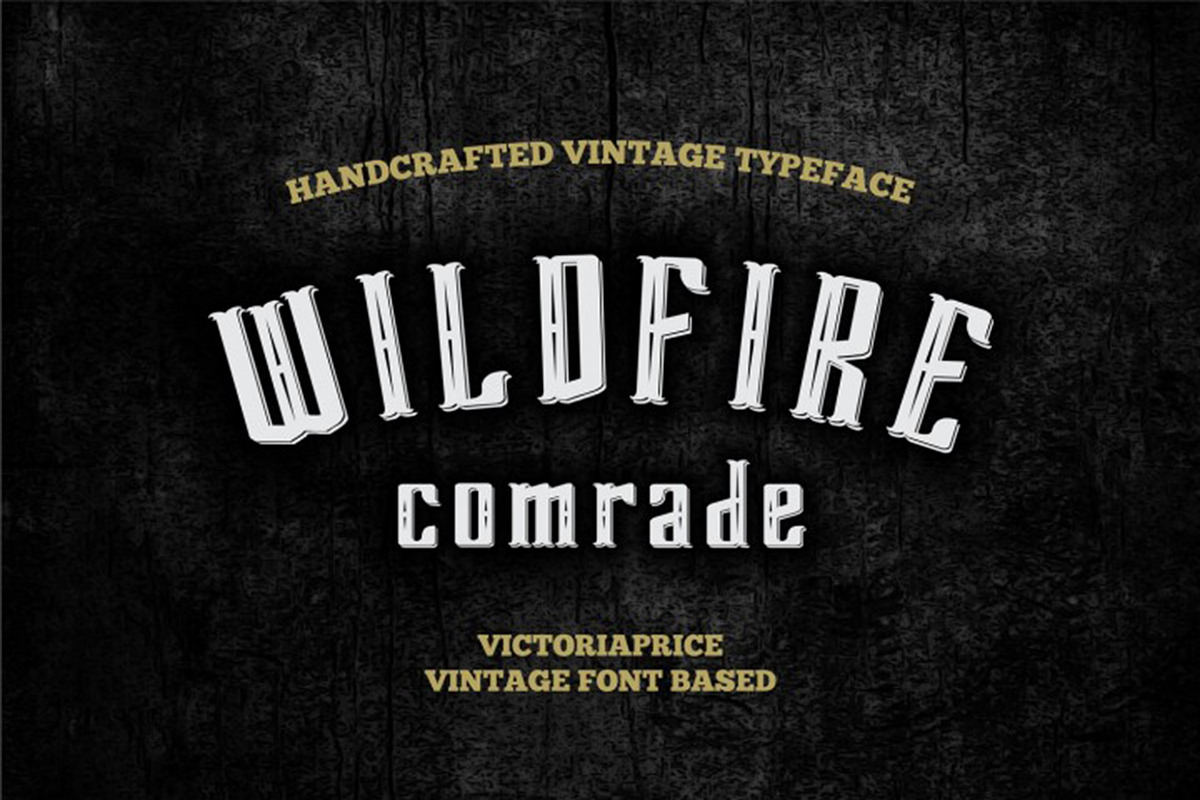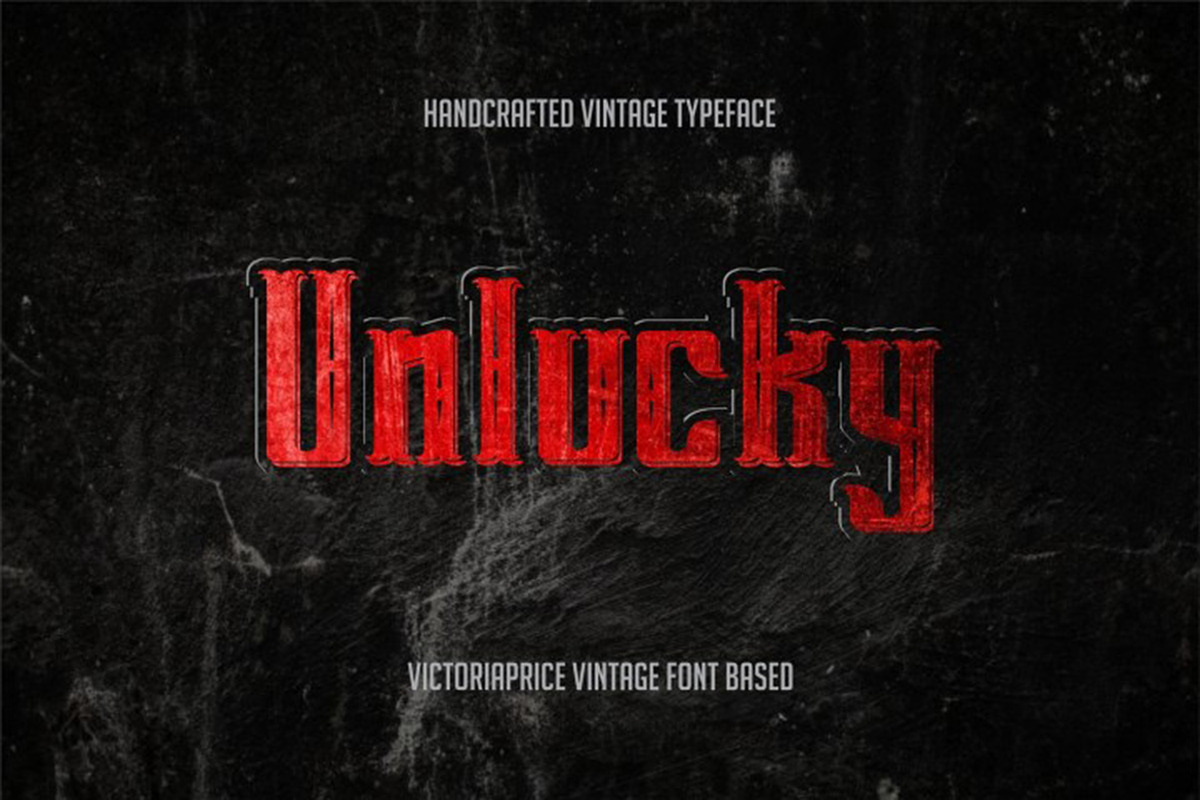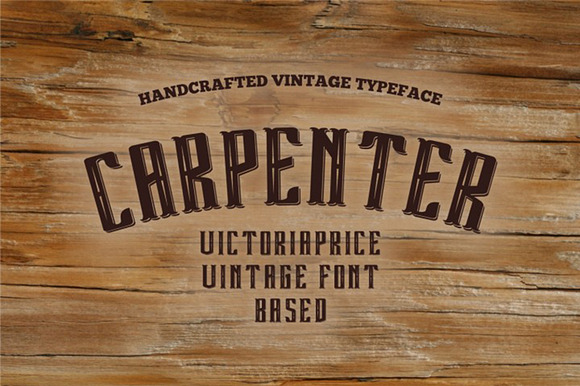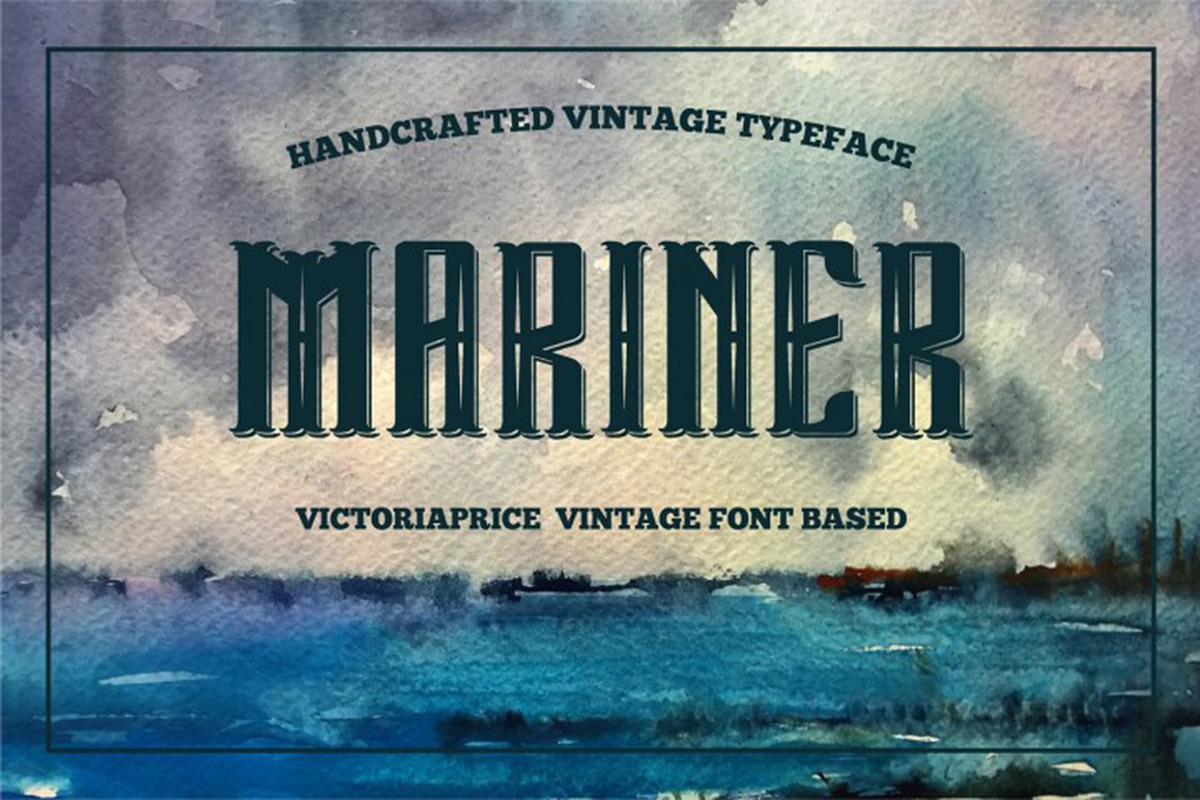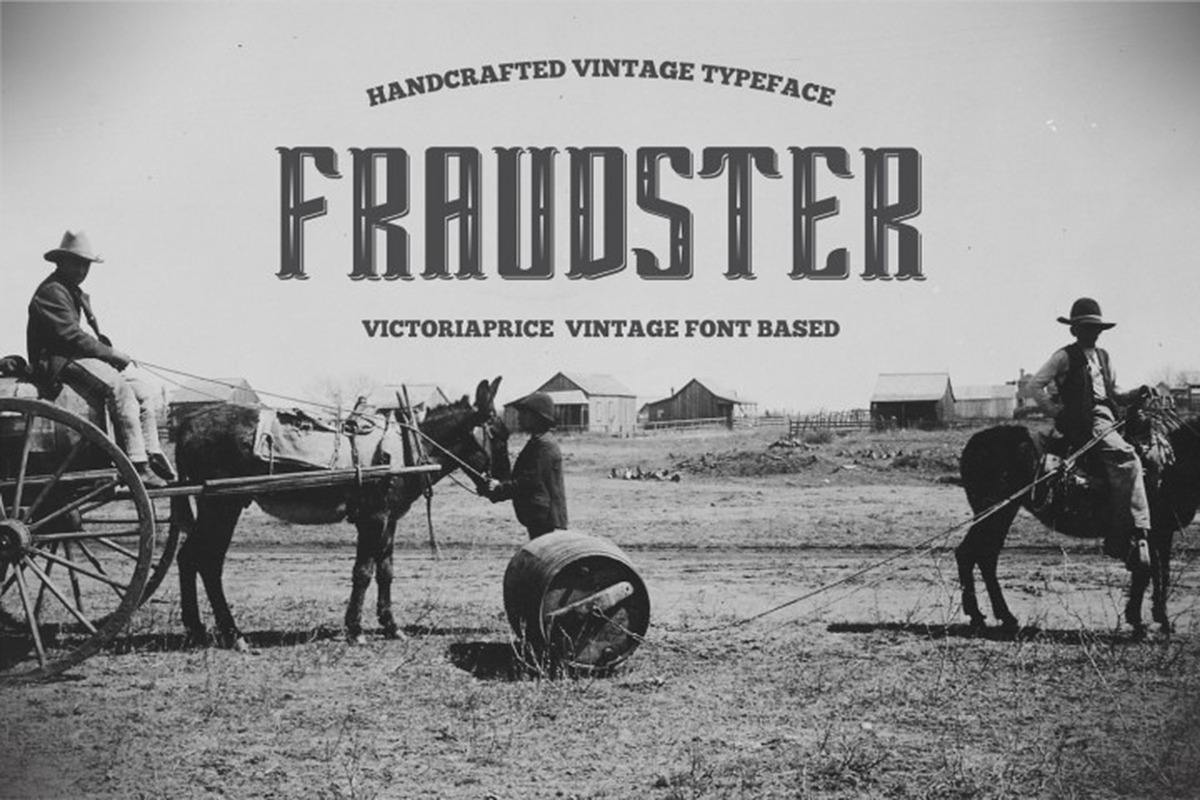
Victoriaprice vintage font
VictoriaPrice is a font you can see on the various bestseller books. It was used not only on book covers also in a movie poster. Futuristic and modern design is visible in strong strongly highlighted lines and shadows of the letters. Use this font in every creative design you can imagine, and your work will become attractive. Constructed by the bold mixture of modern and futuristic alphabet characters without additions and stylized shadows lines this font is ideal for your design works in mostly any subject or theme. VictoriaPrice meaning is timber suitable for making into pulp. As connection with meaning this font has bold strong characters.
- Constructed by the bold mixture of modern and futuristic alphabet characters without additions and stylized shadows lines this font is ideal
- As connection with meaning this font has bold strong characters.
Why Victoriaprice vintage font is worth a look
Victoriaprice vintage font by Vintage Font Lab fits naturally into Branding, posters, packaging, typography.